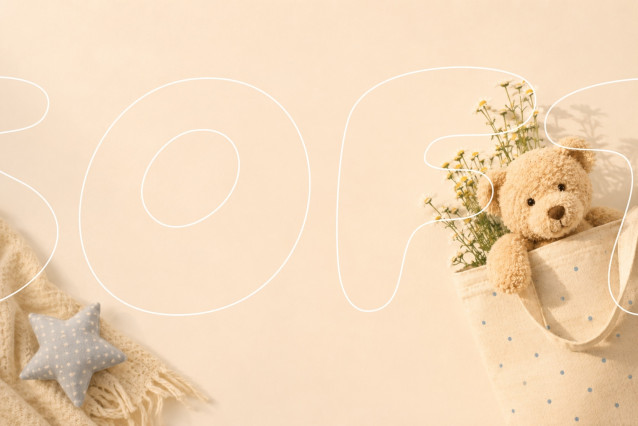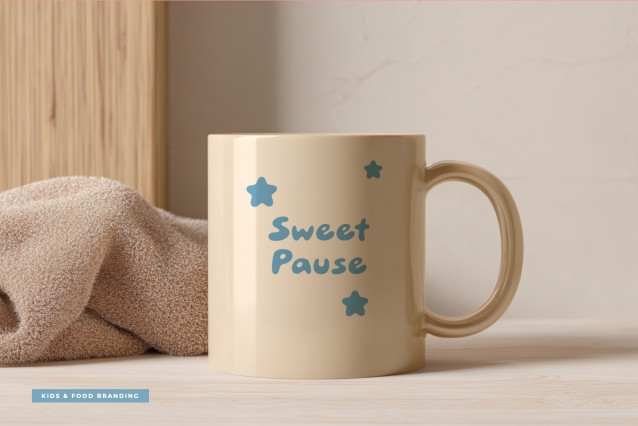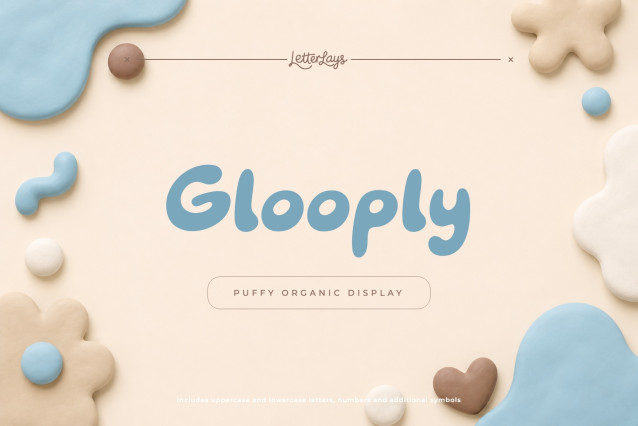
Glooply Puffy Organic Display Font
✨ Glooply is a puffy organic display font with soft blob shapes, squishy tactile rhythm, and gentle playful warmth. It is designed for visual projects that need personality, clarity, and a memorable handmade display voice.
🎨 This font is ideal for kids branding, toy packaging, soft product labels, nursery posters, clay art graphics, food packaging, playful logos, friendly social posts. It works especially well when a design needs a strong title, a distinctive product name, or a warm typographic accent that instantly sets the mood.
💛 Glooply brings character without feeling generic. Use it for branding, packaging, posters, labels, social graphics, invitations, editorial layouts, and creative products that need a custom, expressive look.